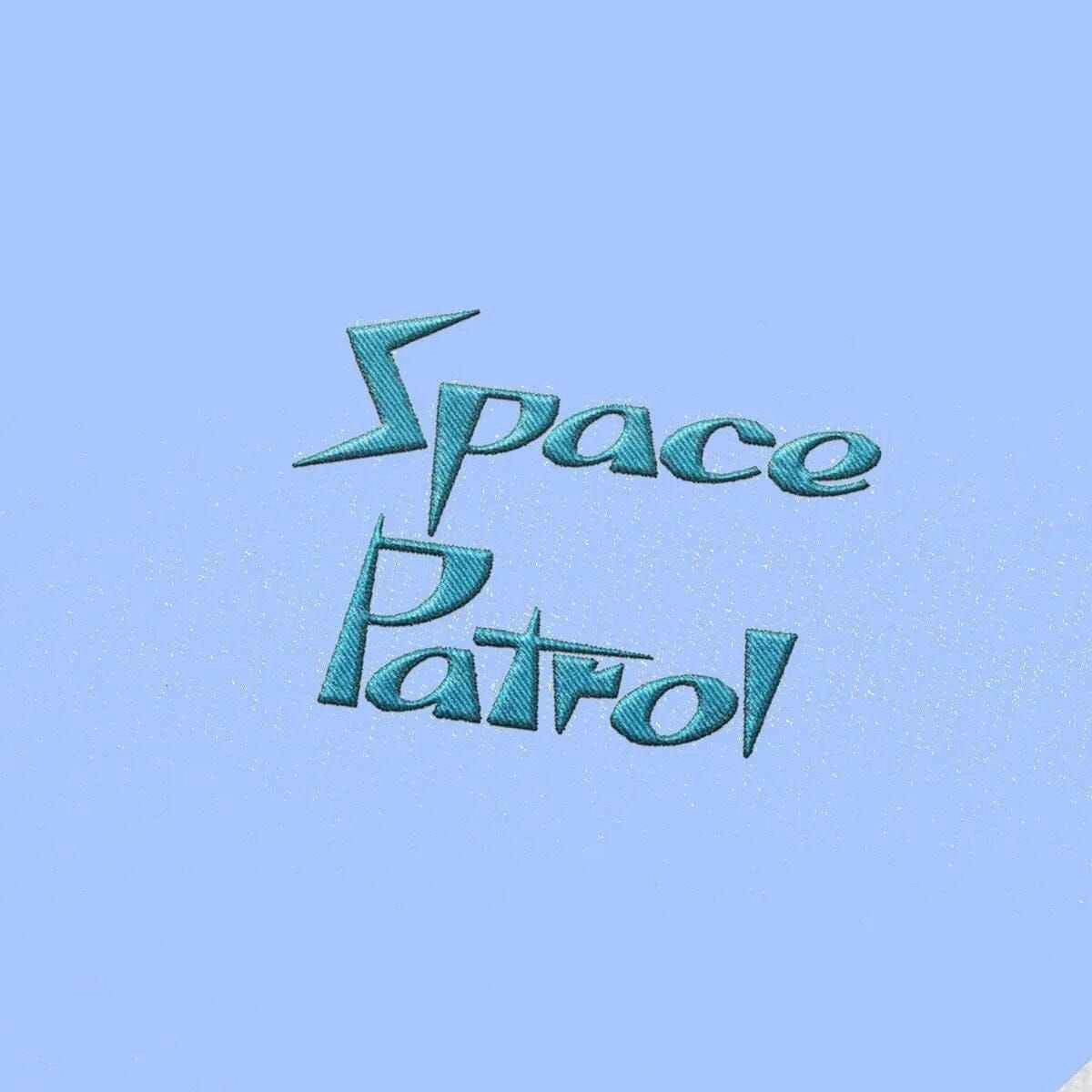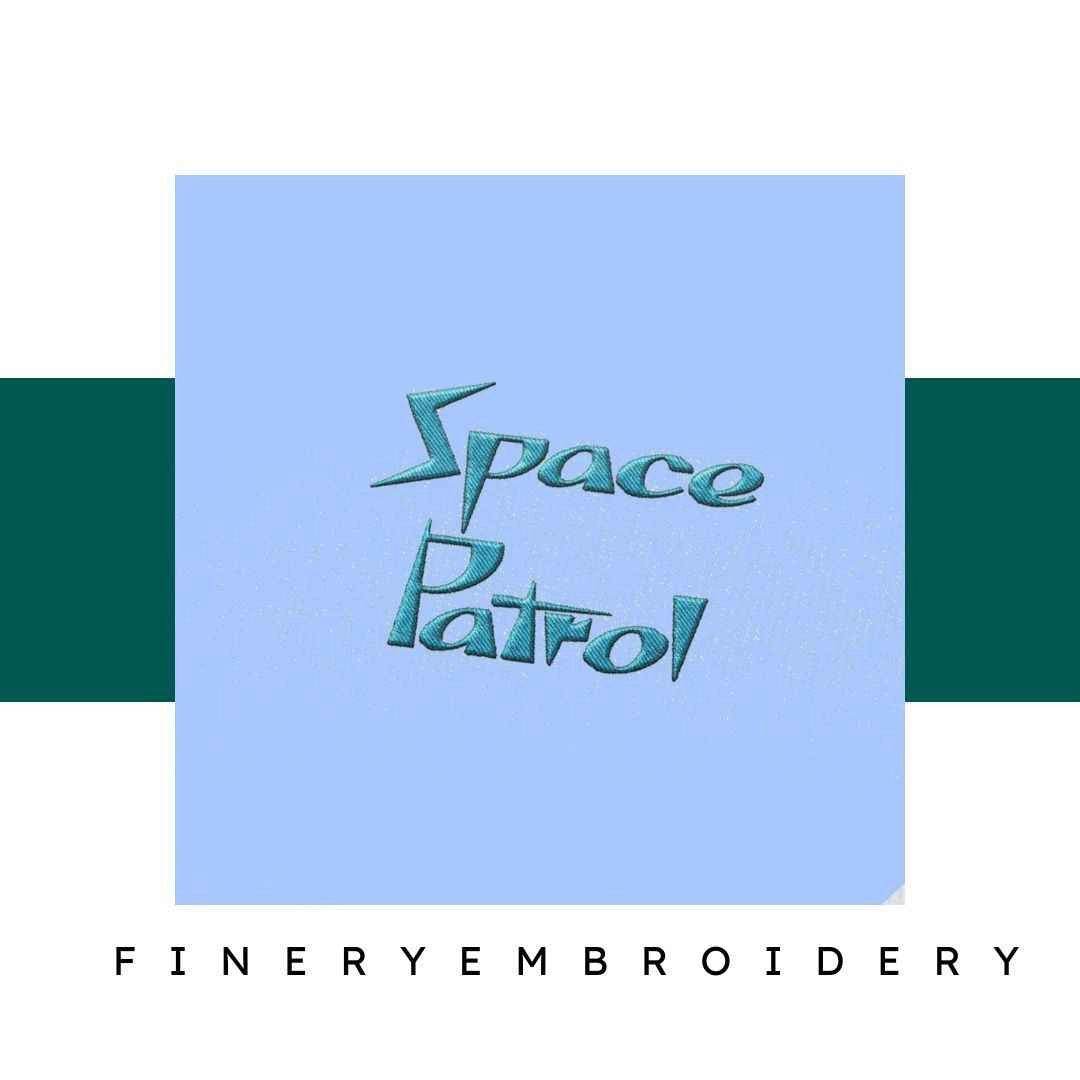
Unleash your creativity with the Space Patrol Embroidery Alphabet Font Set – where elegance meets versatility in every design!
Introducing the Space Patrol Embroidery Alphabet Font Set, the perfect addition to your crafting arsenal. This set is tailored for embroidery enthusiasts who crave sophistication and uniqueness in their projects. With its elegant design and high-quality formats, you can transform any fabric into a masterpiece that reflects your personal style.
Why You'll Love This Design
The Space Patrol Embroidery Alphabet Font Set stands out with its intricate details and sophisticated aesthetic. Each letter is crafted with precision, ensuring that every project you undertake will have an air of elegance. Whether it's for personal use or a special gift, this font set will make your embroidery projects truly memorable.
Creative Applications
Imagine incorporating this stylish font into your next project! The Space Patrol Embroidery Alphabet Font Set is perfect for a variety of applications, including personalized gifts, monogramming, and decorative embellishments. Whether you're working on home textiles, clothing, or even accessories, this font set provides endless possibilities for creative expression.
Digitized for Passionate Embroiderers
We understand the joy and satisfaction that come from creating beautiful embroidery. That's why we’ve meticulously digitized the Space Patrol Embroidery Alphabet Font Set for our fellow embroidery enthusiasts. Each font is designed to be user-friendly, allowing both beginners and seasoned pros to achieve stunning results with ease.
- Perfect for personalizing gifts and creating unique home decor
Details & Craftsmanship
Every detail has been carefully considered to bring you the perfect product.
Unleash your creativity with the Space Patrol Embroidery Alphabet Font Set – where elegance meets versatility in every design!
Introducing the Space Patrol Embroidery Alphabet Font Set, the perfect addition to your crafting arsenal. This set is tailored for embroidery enthusiasts who crave sophistication and uniqueness in their projects. With its elegant design and high-quality formats, you can transform any fabric into a masterpiece that reflects your personal style.
Why You'll Love This Design
The Space Patrol Embroidery Alphabet Font Set stands out with its intricate details and sophisticated aesthetic. Each letter is crafted with precision, ensuring that every project you undertake will have an air of elegance. Whether it's for personal use or a special gift, this font set will make your embroidery projects truly memorable.
Creative Applications
Imagine incorporating this stylish font into your next project! The Space Patrol Embroidery Alphabet Font Set is perfect for a variety of applications, including personalized gifts, monogramming, and decorative embellishments. Whether you're working on home textiles, clothing, or even accessories, this font set provides endless possibilities for creative expression.
Digitized for Passionate Embroiderers
We understand the joy and satisfaction that come from creating beautiful embroidery. That's why we’ve meticulously digitized the Space Patrol Embroidery Alphabet Font Set for our fellow embroidery enthusiasts. Each font is designed to be user-friendly, allowing both beginners and seasoned pros to achieve stunning results with ease.
- Perfect for personalizing gifts and creating unique home decor